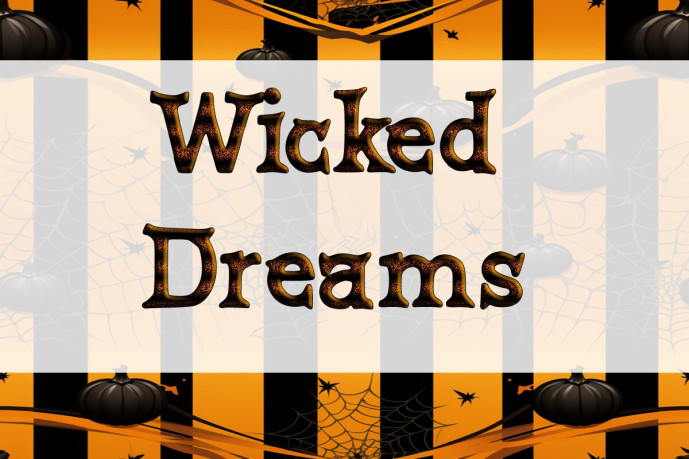
Wicked Dreams Font
Immerse yourself in the vibrant realm of ‘Wicked Dreams’ – a font that transcends ordinary design. With its dramatic flair, it breathes life into shirts, elevates stickers, and establishes memorable branding. ‘Wicked Dreams’ is perfect for magazines, making each page an artistic statement. Its adaptability shines when used in SVG files and greeting cards, adding a unique touch that lingers.
Make your Cricut projects stand out by incorporating ‘Wicked Dreams’, or convey captivating messages on posters. Whether you are creating social media content or designing something special, ‘Wicked Dreams’ promises to transform your projects into extraordinary creations.